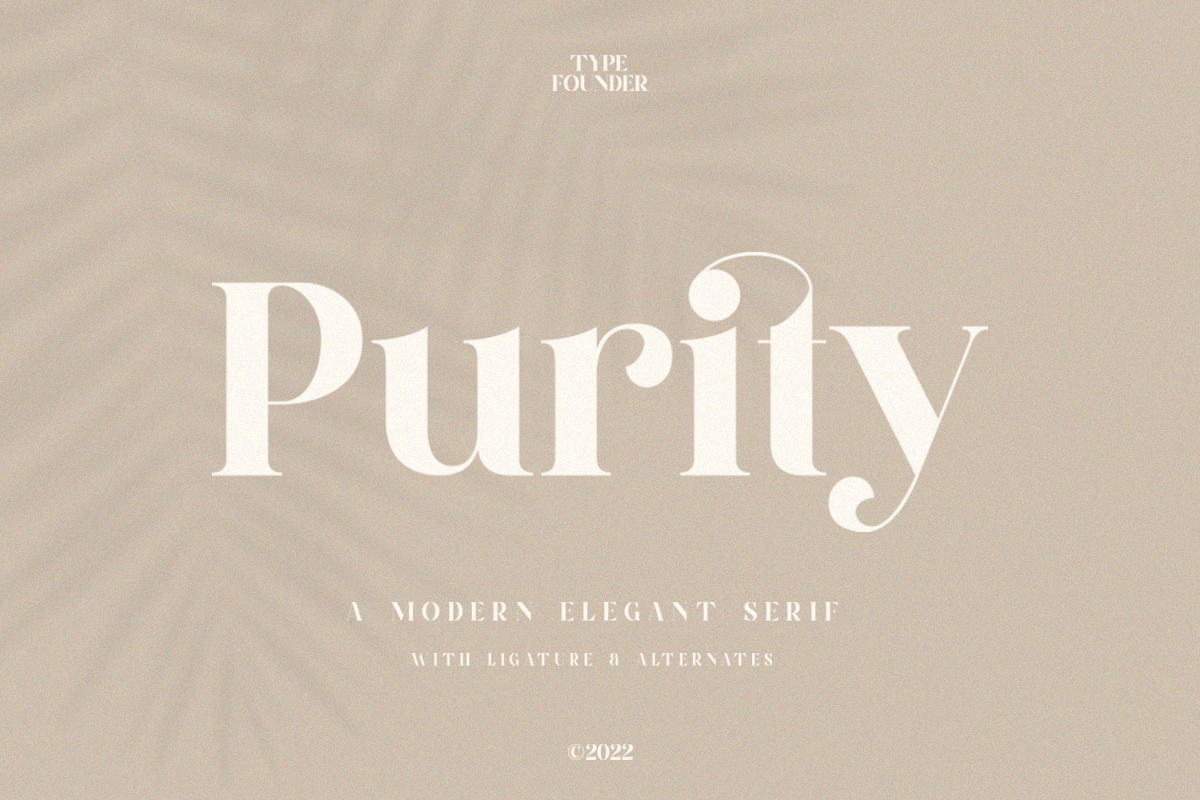
Purity - Modern Ligature Font
Purity is a Modern Elegant Serif typeface with ligature & alternates that looks incredible in both large and small settings as a display with italic version. Suitable for any branding purpose.